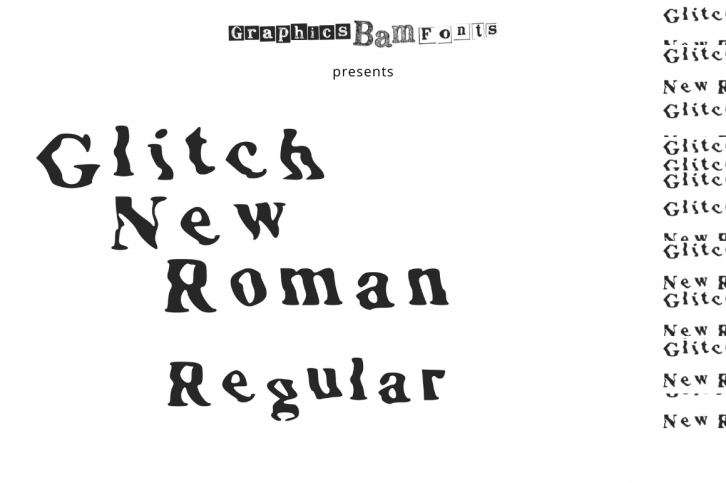
Glitch New Roman Regular is all glitched up and ready to make an impact on your next glitched project.
With a twist on a classic typeface, the distorted feel makes it an ideal font for any hacker, web nerd, or glitch art lover! Get creating, get glitching!